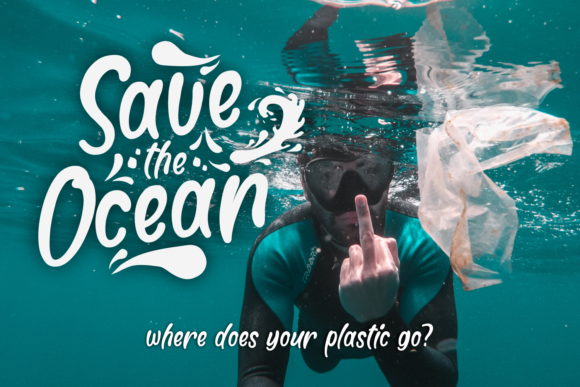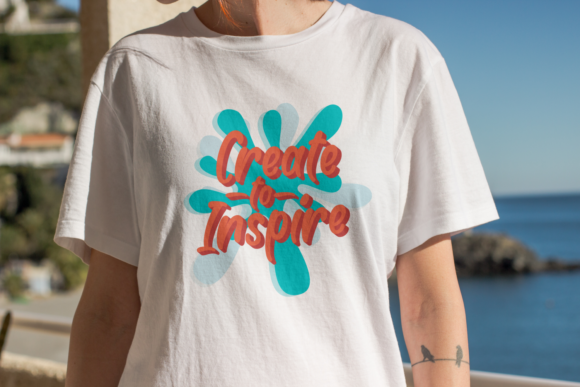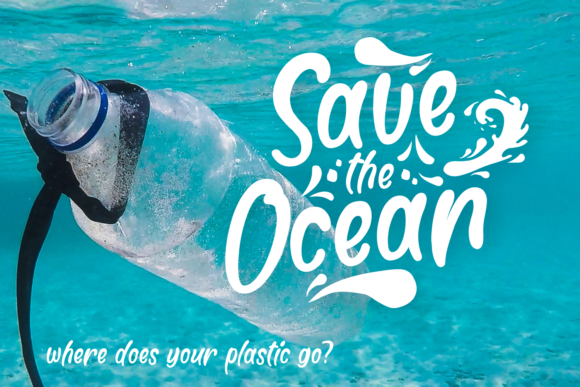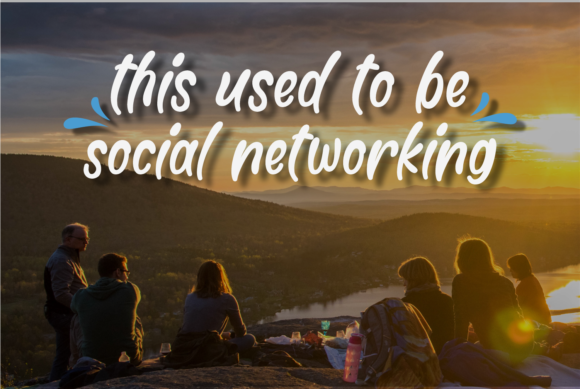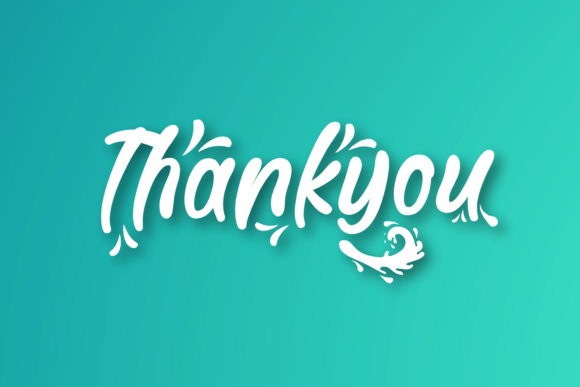
HomeScript FontsWater Blaster Font Script Fonts Water Blaster Font FacebookXPinterestWhatsApp Water Blaster Font Poster 2 Water Blaster Font Poster 3 Water Blaster Font Poster 4 Water Blaster Font Poster 5 Water Blaster Font Poster 6 About Water Blaster Font Water Blaster is a playful and modern script font with a unique style. Get inspired by its aquatic nature! DOWNLOAD ON CREATIVE FABRICAThis font is sold and delivered by Creative Fabrica. Font Canyon may earn a commission if you buy through this link. People also explored Thickums Font Smiley Font Establessed Font Kidding Font Money Rich Font Jackal Nest Font Geostationary Sunday Font Autography Font 401 0 TagsWater Blaster Font Previous articleQuesky FontNext articleThe Live Moment Font LEAVE A REPLY Cancel reply Comment: Please enter your comment! Name:* Please enter your name here Email:* You have entered an incorrect email address! Please enter your email address here Website: Save my name, email, and website in this browser for the next time I comment. Personal Use Free Strings Personal Use Free Read more about this font Street Cred Personal Use Free Read more about this font Eniem Personal Use Free Read more about this font Droid Personal Use Free Read more about this font BLOG Best Fonts for T-Shirt Design – Top 2025 Picks In 2025, t-shirt design has become more than just fashion—it's a form of self-expression. Whether you're... Where to Buy American Fonts Online in 2024 Fonts That Capture the Spirit of New York City Exploring Font Trends